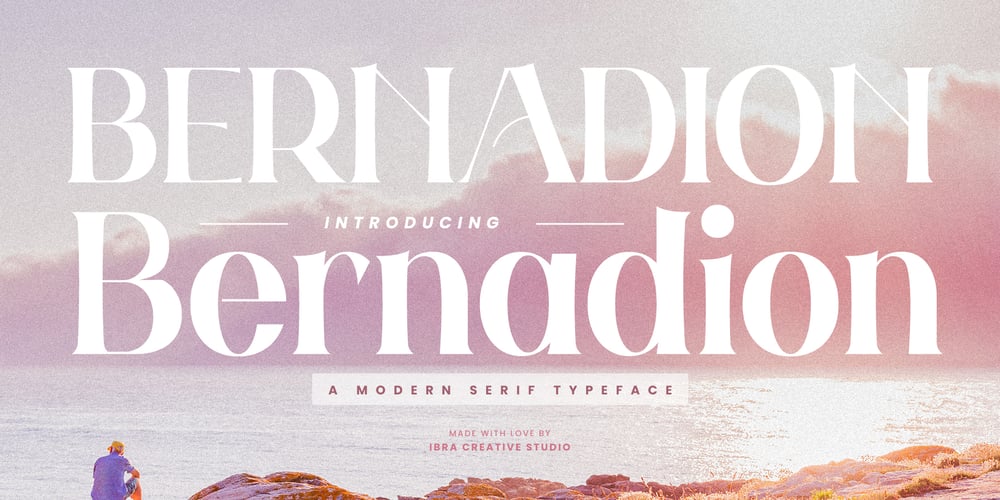
Bernadion
Bernadion font
Bernadion Font Family was designed by Roisatul Azizah and published by IbraCreative. Bernadion contains 1 styles and family package options. Bernadion – A Modern Serif TypefaceBernadion, a modern serif typeface, seamlessly merges sophistication with contemporary design elements, creating a harmonious balance of timeless elegance and sleek aesthetics. With its refined letterforms and subtle geometric influences, Bernadion captures attention with a crisp and professional demeanor. The font’s balanced proportions and meticulous detailing ensure clarity and readability across various platforms, making it versatile for both print and digital applications. Whether employed in editorial design, branding, or web interfaces, Bernadion stands as a testament to the marriage of classic serif traditions and the demands of modern design, elevating any project with its distinctive and polished appeal.Bernadion is perfect for branding projects, logo, wedding designs, social media posts, advertisements, product packaging, product designs, label, photography, watermark, invitation, stationery, game, fashion and any projects.Fonts include multilingual support for; Afrikaans, Albanian, Czech, Danish, Dutch, English, Estonian, Finnish, French, German, Hungarian, Italian, Latvian, Lithuanian, Norwegian, Polish, Portuguese, Slovak, Slovenian, Spanish, Swedish.